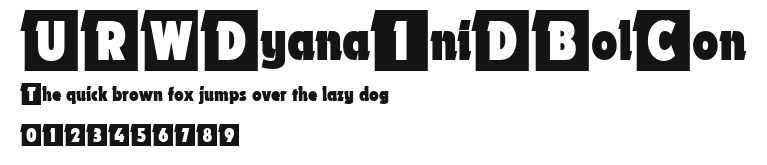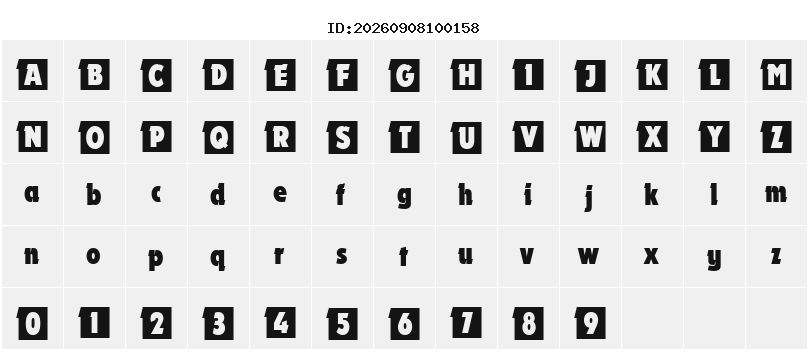
URWDyanaIniDBolCon Preview
• Font Name: URWDyanaIniDBolCon
• Font ID: URW:URWDyanaIniD-BoldCond:1996
• Full Font Name: URWDyanaIniDBolCon
• PostScript Name: URWDyanaIniD-BoldCond
About URWDyanaIniDBolCon.ttf
URWDyanaIniDBolCon.ttf is a modern, elegant sans-serif font designed for ultimate readability and visual harmony. Perfect for branding, headlines, web design, and print materials.